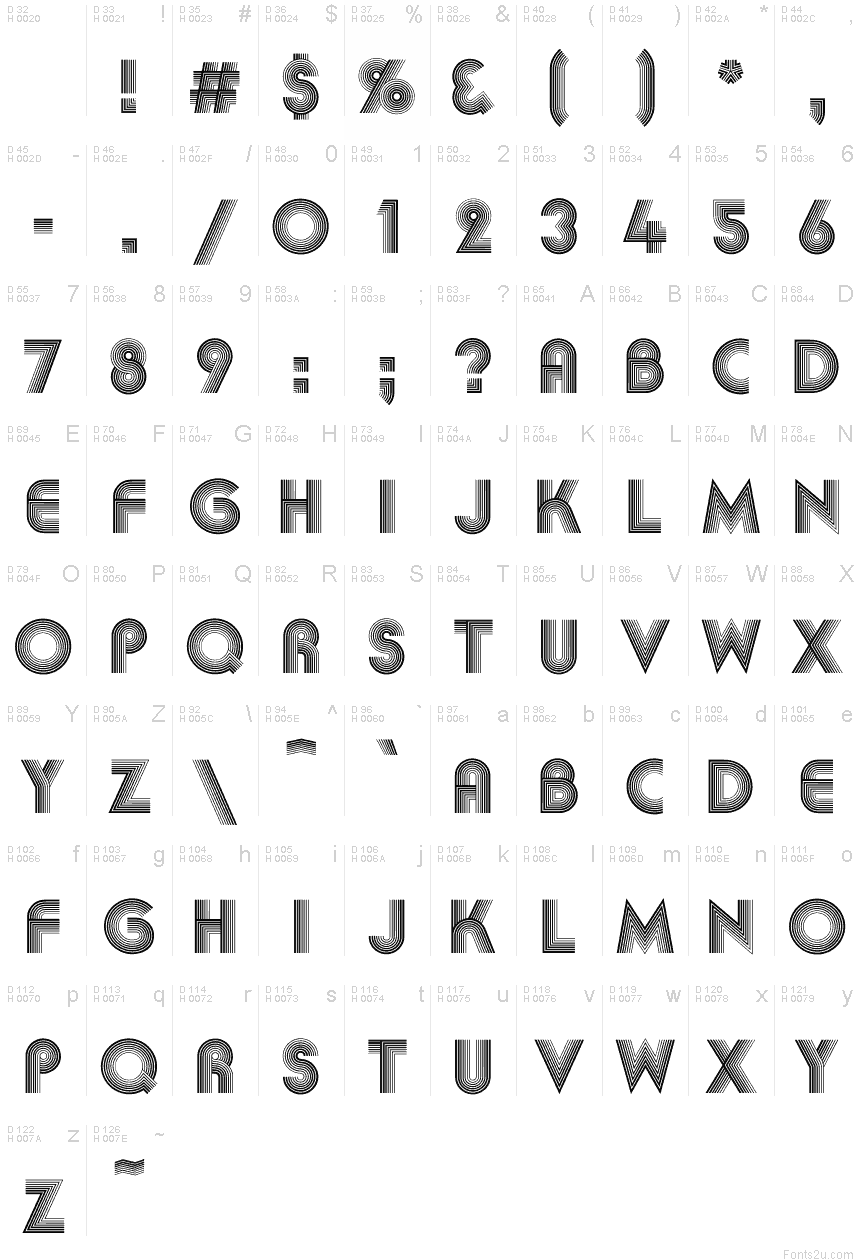
Akka
Akka font by its designer is a free groovy display typeface that turns every letter into a bold, hypnotic maze. Built from tightly stacked parallel lines that echo and bend in unison, it feels like a vintage poster pulled from a 1970s record shop—vibrating, rhythmic, and slightly surreal. The repeated strokes create a dense, architectural texture that grabs attention even from a distance, especially in big, inky black on light backgrounds.
Using Akka, your headlines don’t just speak, they pulsate. This free font shines on music and festival posters, retro album covers, bold logos, fashion branding, editorial openers, and eye-catching social graphics. Keep it large and give it space to breathe, then pair Akka with a simple geometric sans serif for body copy so the intricate line work can really sing.